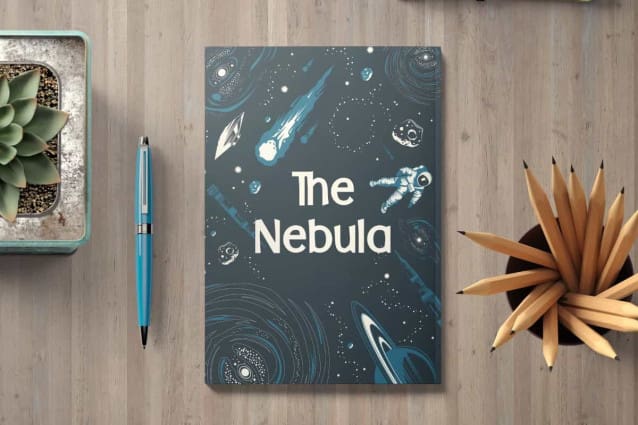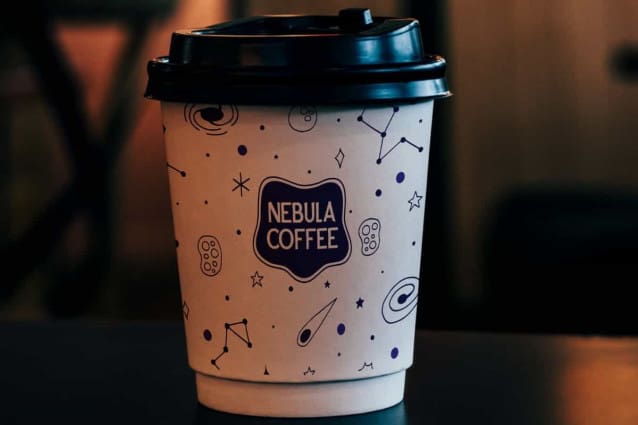
Nebula View Font
Nebula View Font is a basic yet fun sans serif display font with unique characteristics. This font has a unique style so it can be paired with other types of fonts perfectly. It will be good for any designs, such as brand image, cover, custom design, invitation, label, marketing material, menu, poster, product packaging, quote, signage, stationery, web, and many more!
Nebula View Font includes full set of Uppercase and Lowercase Basic Characters, Numerals, Punctuation, and Symbol. The characters of this font will give awesome touch and also a perfect choice for many industries, such as accessories, advertising, cafe, event or festival, fashion, game, movie, photography, printing, publishing, sport, etc.